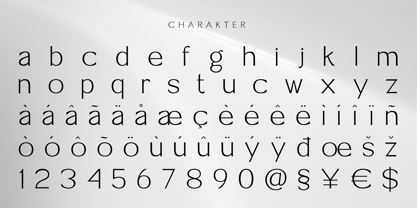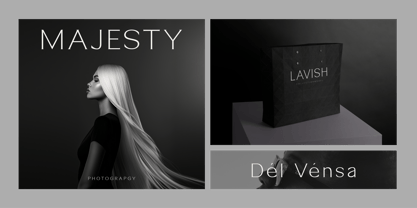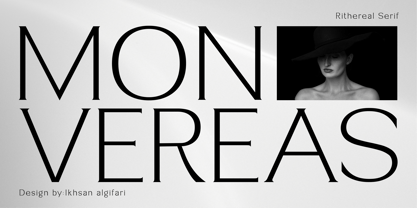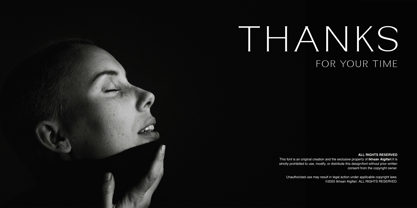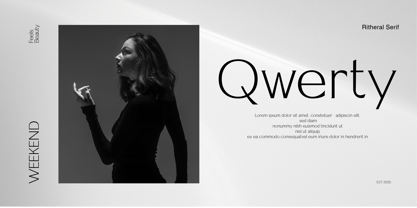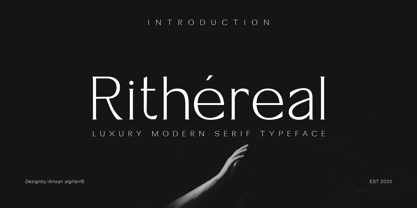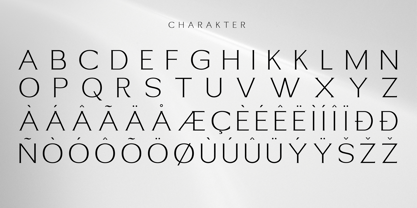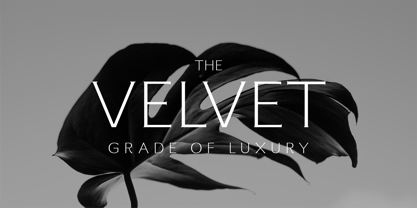
Rithereal
by Gifari
The Rithereal Font Family was designed by Ikhsan Algifari and published by Gifari. Rithereal contains 1 styles. More about this family
Step into a world of timeless sophistication with Rithereal a luxury serif typeface meticulously crafted to redefine beauty in typography. Designed with precision and an eye for detail, this typeface is more than just letters—it’s a statement of class, artistry, and unparalleled refinement.
From the first glance, Rithereal captivates with its harmonious balance between bold confidence and graceful subtlety. Each stroke, curve, and serif has been thoughtfully designed to create a typeface that speaks to the senses and evokes emotions, making it an essential tool for designers who seek to inspire and impress.